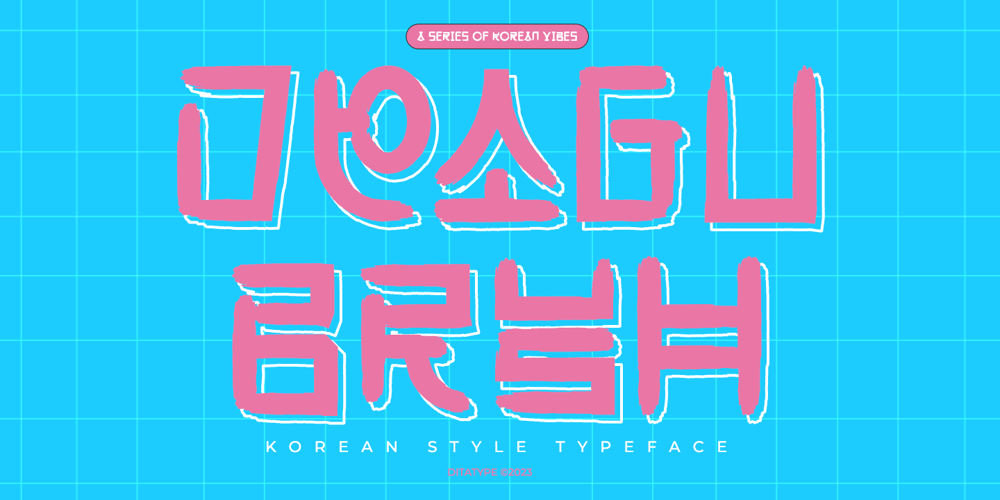
Deagu Brush
Deagu Brush font
Deagu Brush Font Family was designed by Donis Miftahudin and published by Ditatype. Deagu Brush contains 1 styles and family package options. Daegu Brush is a captivating display font that beautifully marries the essence of Korean artistic tradition with the modern flair of brush stroke artistry. This font is an embodiment of cultural richness, reflecting the vibrant energy and creative spirit of its namesake city, Daegu.At the heart of Daegu Brush’s design is its meticulous brushwork. Each character is crafted with detailed, expressive brush strokes, giving the font a dynamic, hand-painted feel. This attention to detail ensures that each letter carries a sense of individuality and craftsmanship, making the font not just a tool for text but a collection of art pieces.The Korean style of Daegu Brush is evident in its letterform structures, drawing inspiration from the elegant, flowing shapes found in traditional Korean calligraphy. This adds a level of authenticity and cultural depth to the font, making it an excellent choice for projects that wish to convey a strong sense of Korean heritage and artistic beauty.Features: Ligatures Multilingual Supports PUA Encoded Numerals and PunctuationsUppercase Daegu Brush fits in headlines, logos, posters, flyers, branding materials, greeting cards, print media, editorial layouts, and many more designs. Find out more ways to use this font by taking a look at the font preview.Thanks for purchasing our fonts. Hopefully, you have a great time using our font. Feel free to contact us anytime for further information or when you have trouble with the font. Thanks a lot and happy designing.